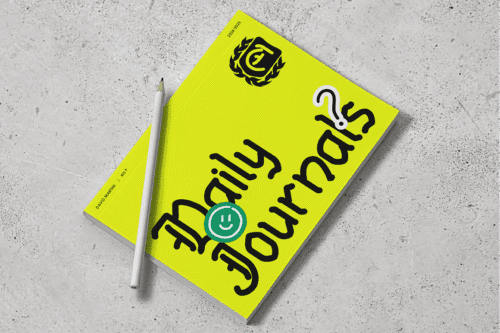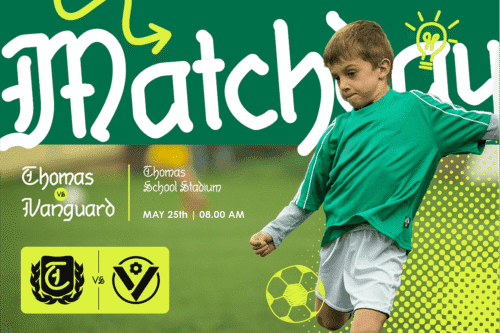
MO Calolden
MO Calolden is a playful blackletter font with 10 weights from Hairline to Black, blending gothic style with modern curves. Perfect for branding, posters, and editorial design, it comes in TTF, WOFF, and WOFF2 formats and works with all major design tools. For licensing or custom requests, visit monocotype.com/contact.
MO Calolden is a playful blackletter font designed for modern creatives who want a bold, unique voice in their work. Featuring 10 weights from Hairline to Black, this versatile typeface combines classic gothic shapes with friendly, contemporary curves, perfect for branding, posters, school projects, journals, and editorial design.